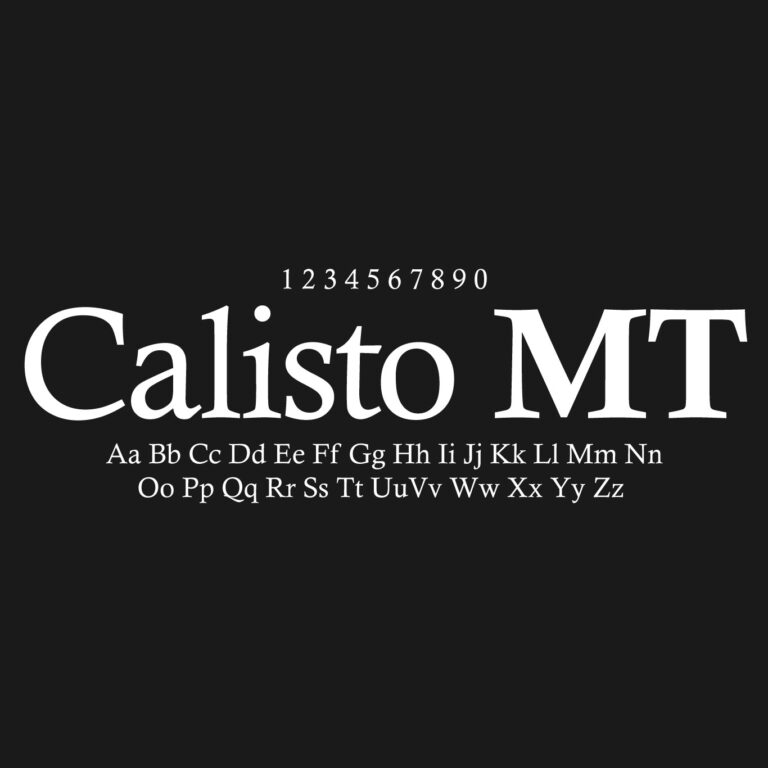
Drawn by a Cartographer
Calisto was designed in 1986 by Ron Carpenter, a British typographer with an unusual route into type design: he left school at sixteen and trained as a cartographer, surveying and hand-drawing Ordnance Survey maps before his eye for lettering landed him a job in Monotype’s type department in 1968. He rose to senior type designer by 1984 — along the way drawing supplementary weights of Times New Roman and helping Robin Nicholas (later of Arial fame) with the italics for Nimrod — before creating Calisto, the typeface that remains his best-known work. The “MT” suffix simply marks it as a Monotype original, the same convention behind Bookman Old Style MT or Century Gothic MT.
Like Georgia or Calibri, Calisto owes its ubiquity to bundling: Microsoft licensed it into Office and Windows, which quietly installed this 1980s Monotype design on hundreds of millions of computers. Carpenter himself left Monotype in 1992 and went on to join Bruno Maag’s foundry Dalton Maag, but Calisto stayed behind in the world’s font menus.
A Text Face and a Display Face at Once
Calisto’s design goal was dual-purpose from the start: a serif that reads comfortably as body text but holds enough character to work in headlines. It achieves this with minimal stroke contrast — the letters keep an unusually even “color” on the page, especially at small sizes, which is where its high legibility comes from. The personality lives in the details: serifs and terminals cut at an angle to the baseline with a subtle concave indent, a slightly calligraphic treatment that critics have compared to Palatino and Belwe, and a notably tall x-height in the lowercase. The result reads as classical without feeling stiff — warmer than Times New Roman, quieter than Georgia.
In practice, Calisto suits book interiors, reports, editorial layouts, academic documents, and any design that wants traditional serif credibility with a touch more softness than the usual defaults. The Bold holds up well in headings, and the Italic — angular and lively — is one of the more distinctive system-font italics of its era.
Font Type: Serif
Category: Old-Style Serif / System Font
Visual Style: Classical, warm, legible, quietly calligraphic
Best For: Body text, books, reports, academic documents, editorial layouts and headings
Designer: Ron Carpenter
Foundry: Monotype
Released: 1986
Palatino is the closest classic comparison — Calisto’s angled, gently indented terminals nod in its direction — while Georgia covers similar warm-serif territory with a screen-first build. Among open-source options, EB Garamond and Crimson Text offer the old-style bookishness, Lora bridges old-style warmth with modern web performance, and Gelasio (Google’s metric-compatible Georgia substitute) is worth knowing for web work. Carpenter’s own Amasis, a slab-flavored sibling from 1990, is the natural next stop for fans of his lettering.